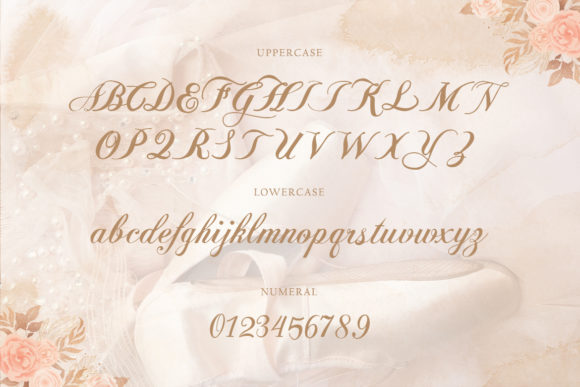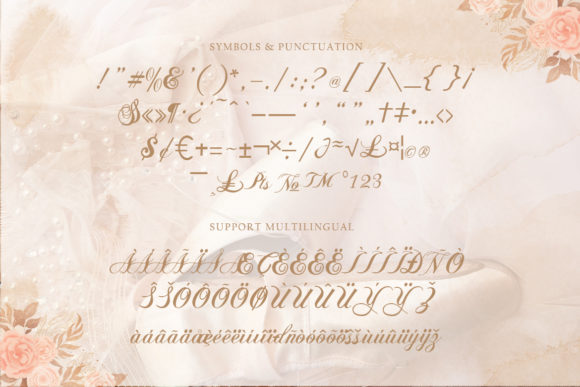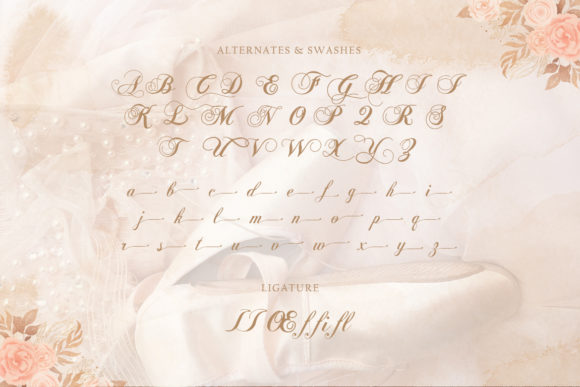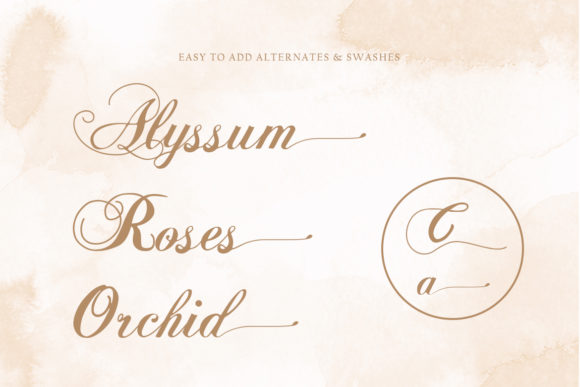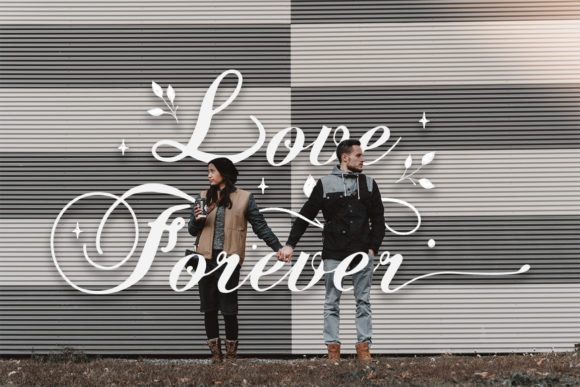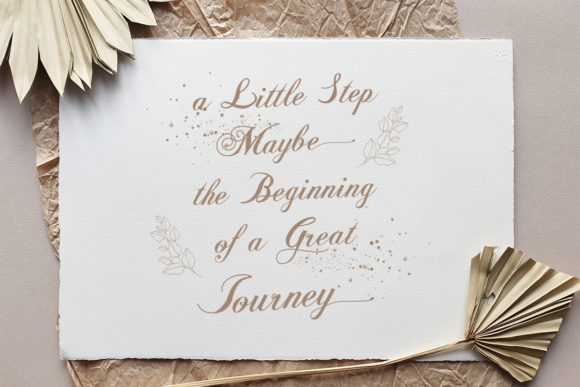
The Elegance of Balleria Font: A Designer’s Delight
I still remember the time I was working on a wedding invitation project, and my client asked for a font that exuded elegance and sophistication. I scoured the internet, trying out various fonts, but none seemed to fit the bill. That’s when I stumbled upon Balleria Font, and it instantly became my go-to choice. In this article, I’ll share my experience with Balleria Font, its features, and how to make the most of it in your designs.
An Honest Review of Balleria Font
Balleria Font is a classy and lovely script font that has won my heart with its elegant style. Here are some things I love about it:
- ✨ Elegant and sophisticated design, perfect for high-end projects
- ✅ Highly versatile, suitable for various design applications
- 💫 Beautifully crafted letters, with intricate details and flourishes
- 📚 Extensive character set, including glyphs and stylistic alternates
While Balleria Font is an excellent choice, it’s not without its quirks:
- 🤔 Some users might find the font a bit too ornate for certain projects
- ⚠️ Limited use of bold weights, which might not be suitable for all designs
The Story Behind Balleria Font
Balleria Font was designed by a talented type designer who wanted to create a font that captured the essence of elegance and sophistication. Inspired by traditional calligraphy and script fonts, Balleria Font was crafted to be both beautiful and versatile. Whether you’re designing a wedding invitation or a luxury brand logo, Balleria Font is an excellent choice.
| Font Name | Balleria Font |
| Author | TypeFactory |
| What is Balleria Font best used for? | Balleria Font is perfect for creating elegant designs, such as logos, wedding invitations, headings, t-shirts, letterhead, signage, labels, and more. |
| Is Balleria Font suitable for body text? | While Balleria Font is beautiful, it’s best used for headings and titles. For body text, a more readable font is recommended. |
| Does Balleria Font come with OpenType features? | Yes, Balleria Font includes OpenType features, such as glyphs and stylistic alternates, which can be accessed in compatible design software. |